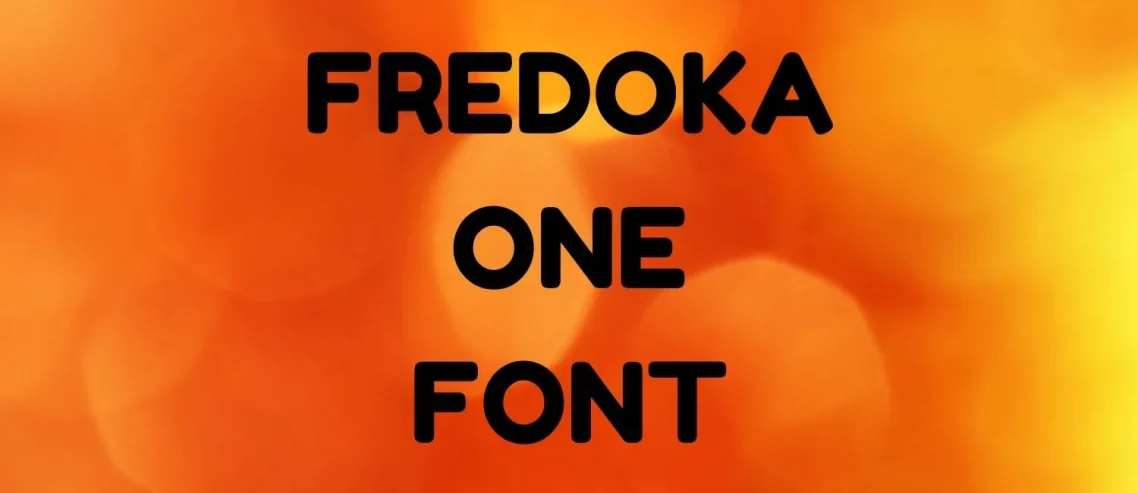
Fredoka One Font is a very elegant and unique shape font that belongs to a sans-serif family. This typeface has a very bold and clean visual. This typeface has a very natural curve that gives a very unique shape to your design. This font has a very smoother curve as compared to the primary computer-generated curves.
The author of this typeface is Milena Brandao. This typeface got tremendous success after its release.
DesignerMilena Brandao
StyleSans-serif